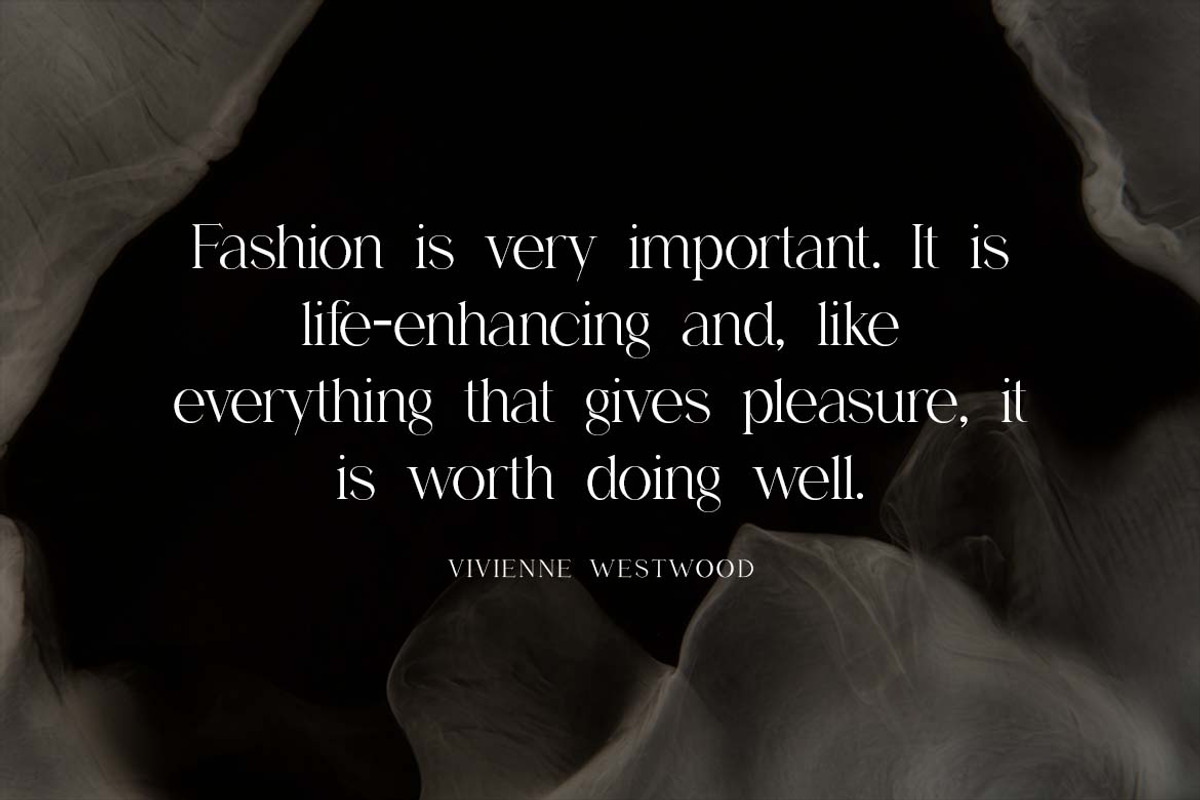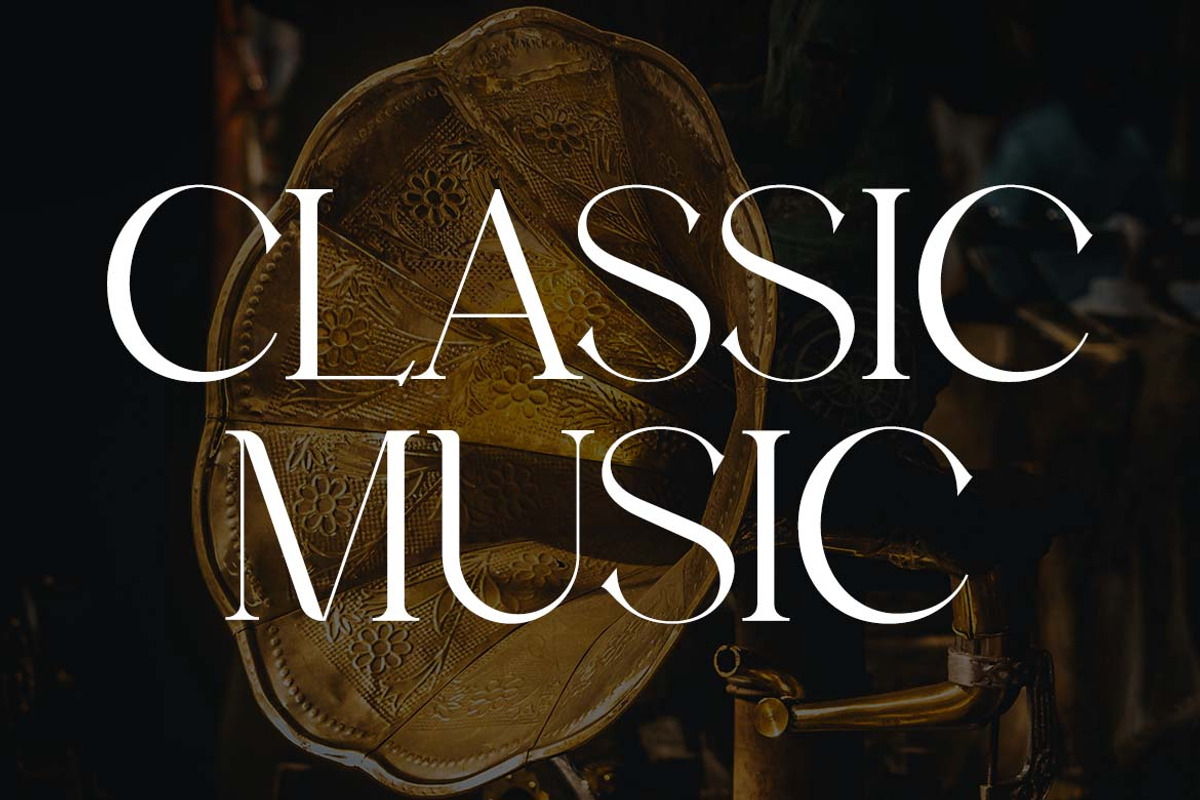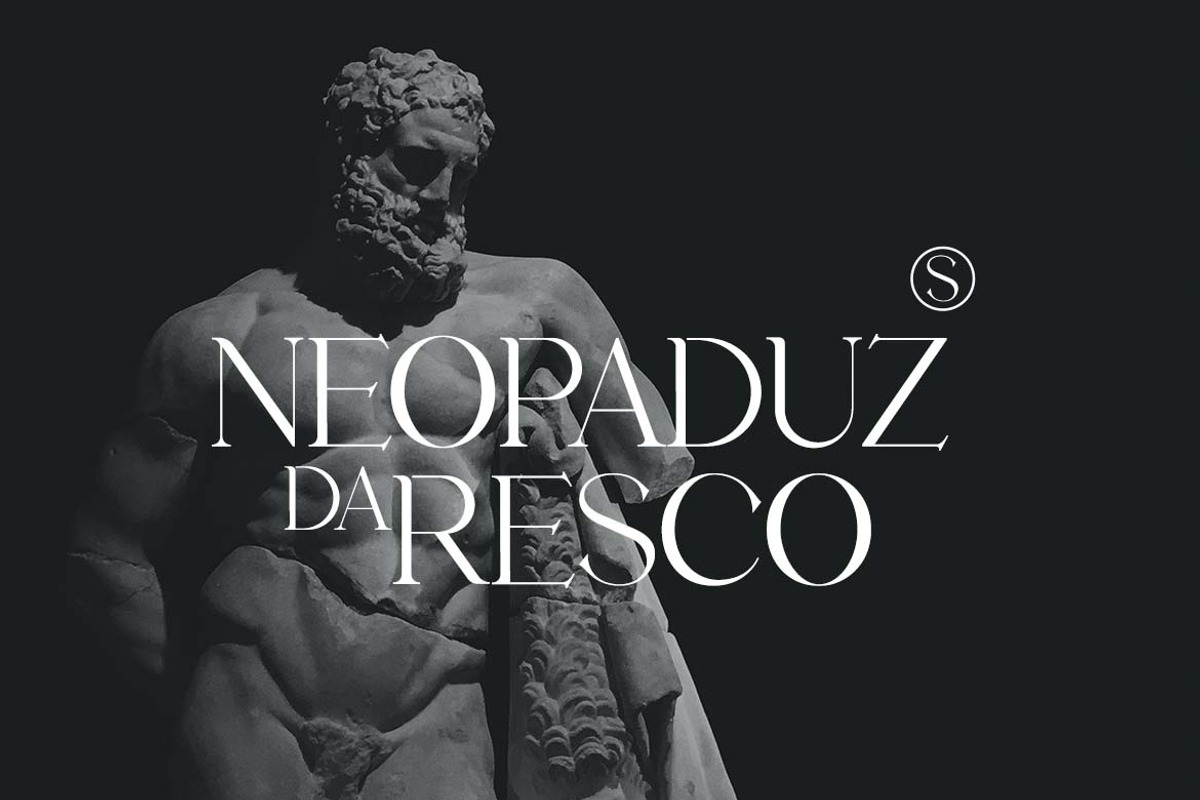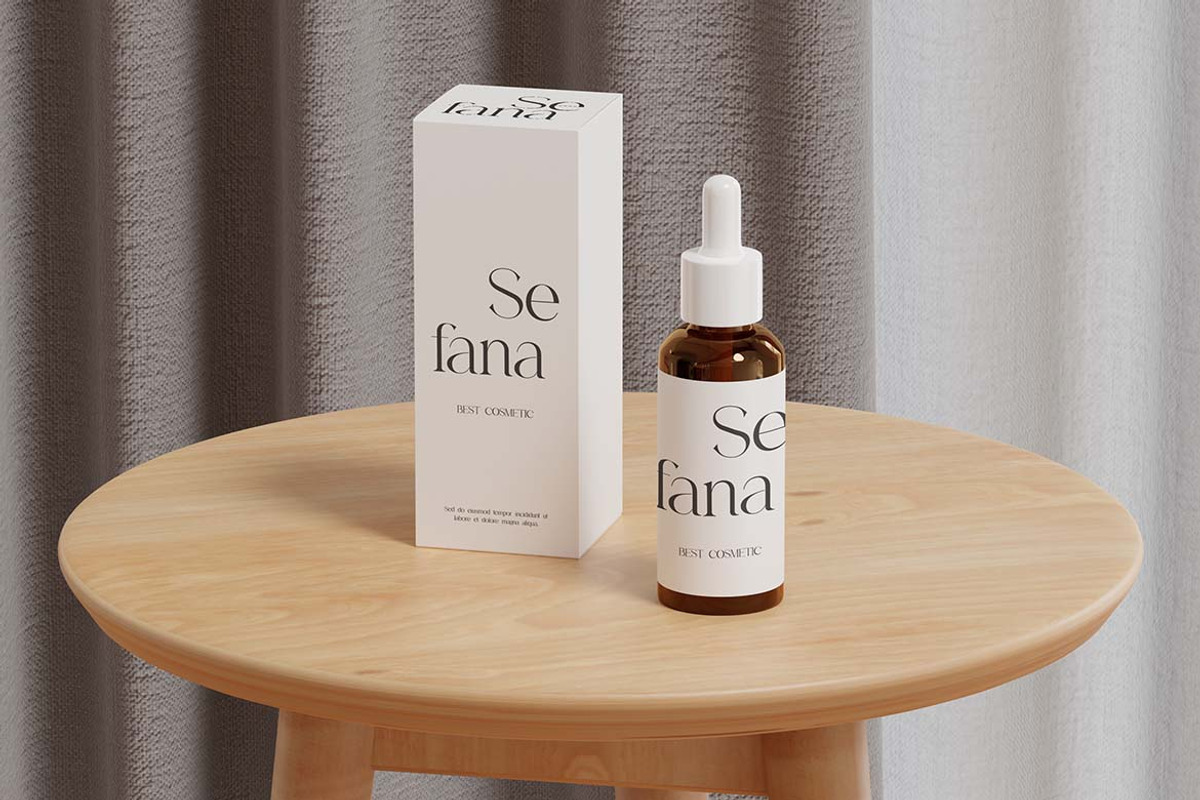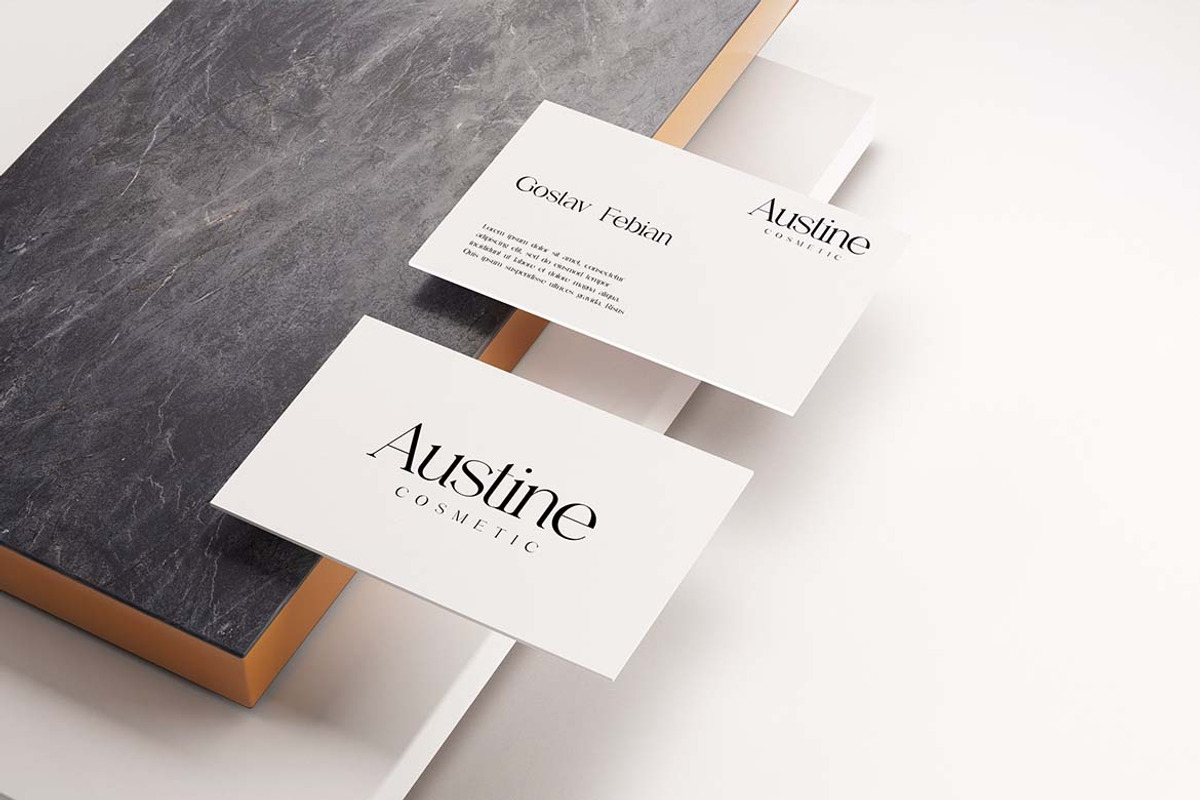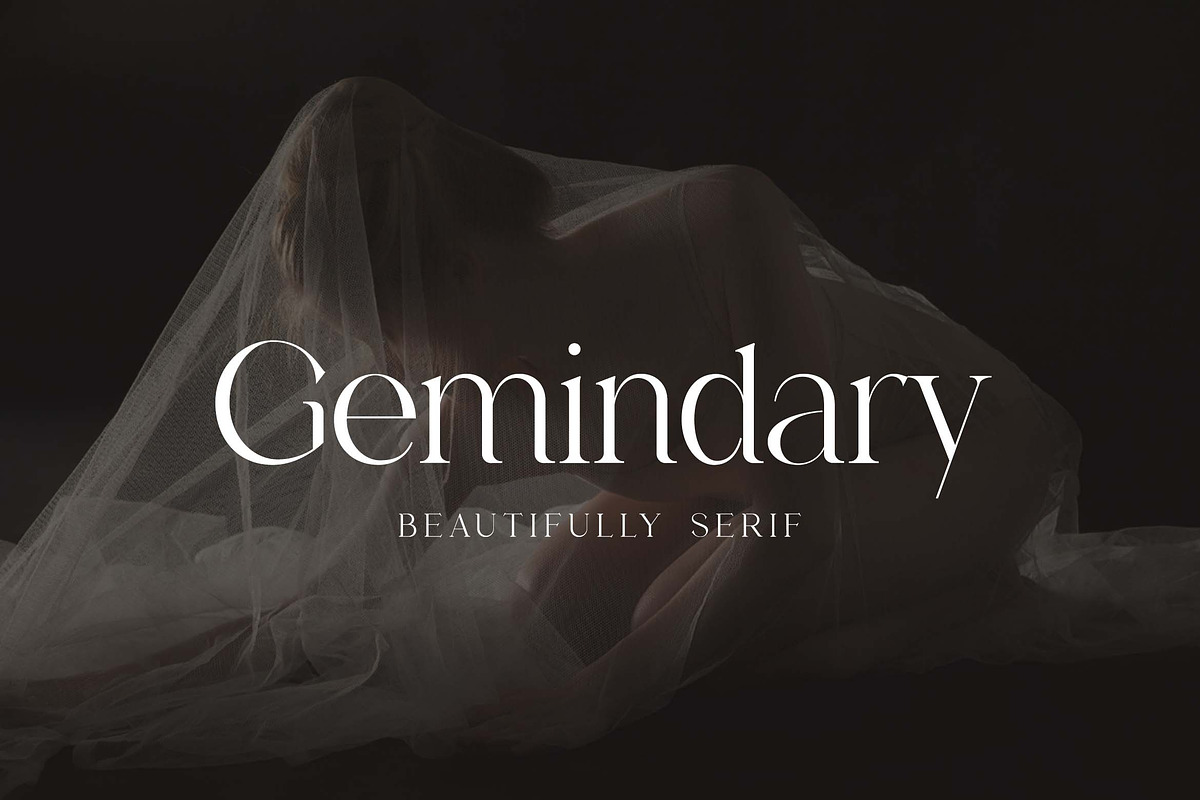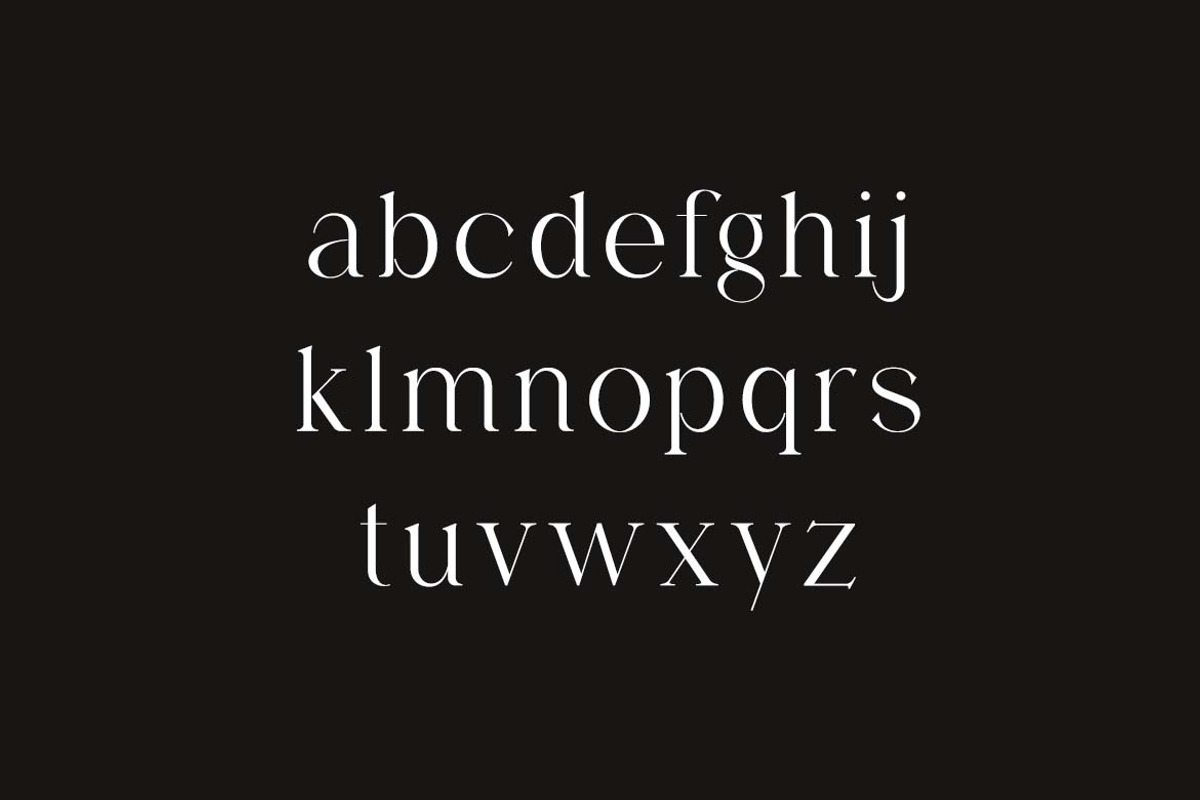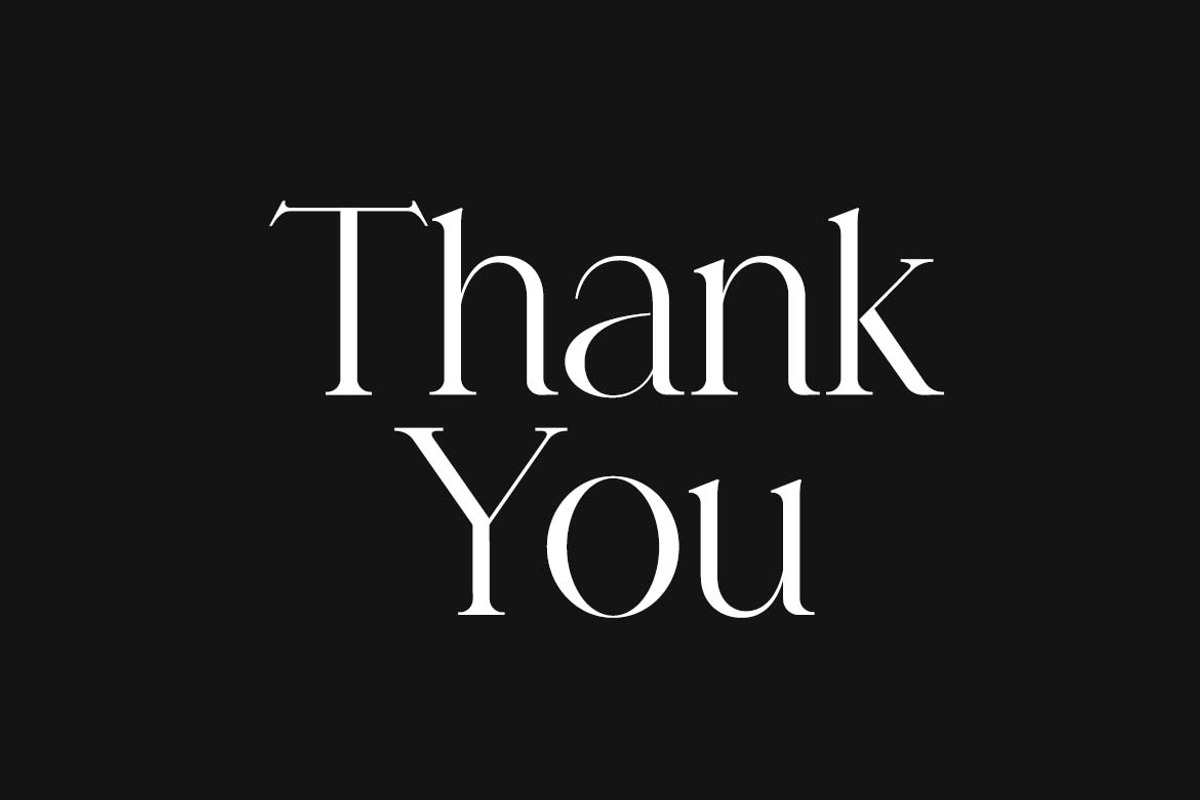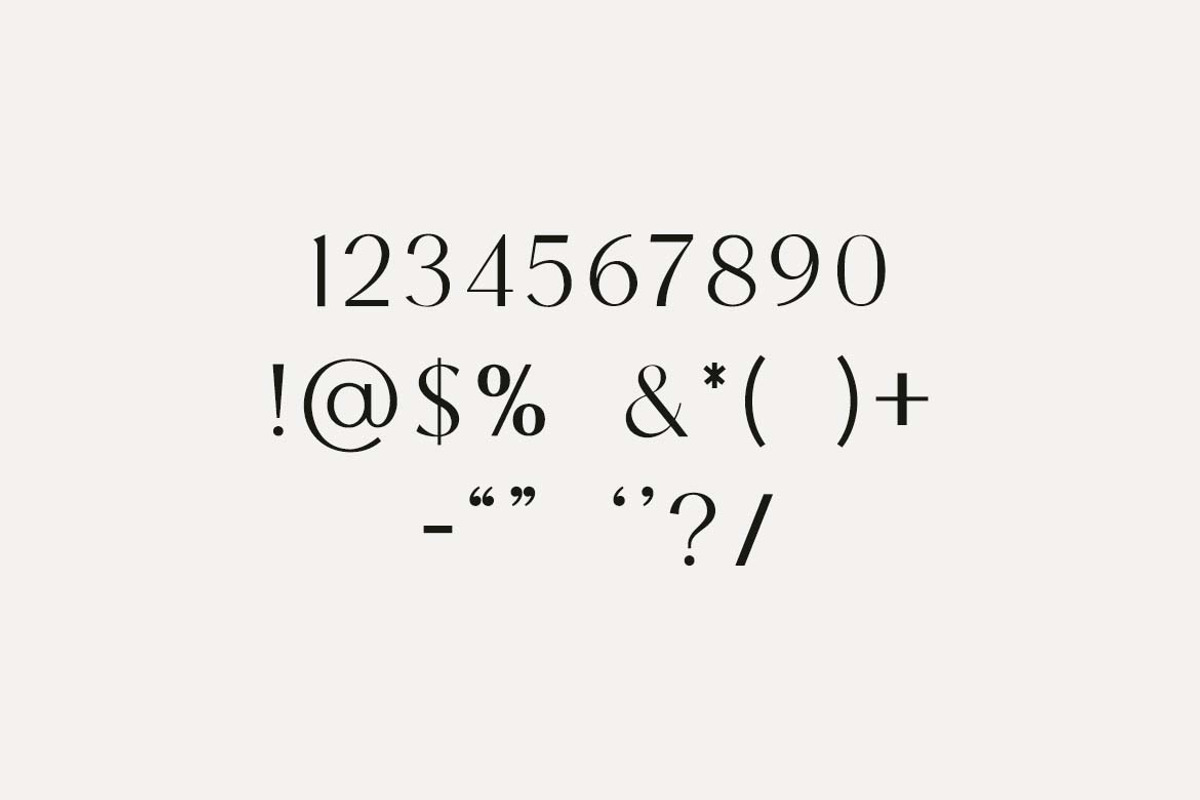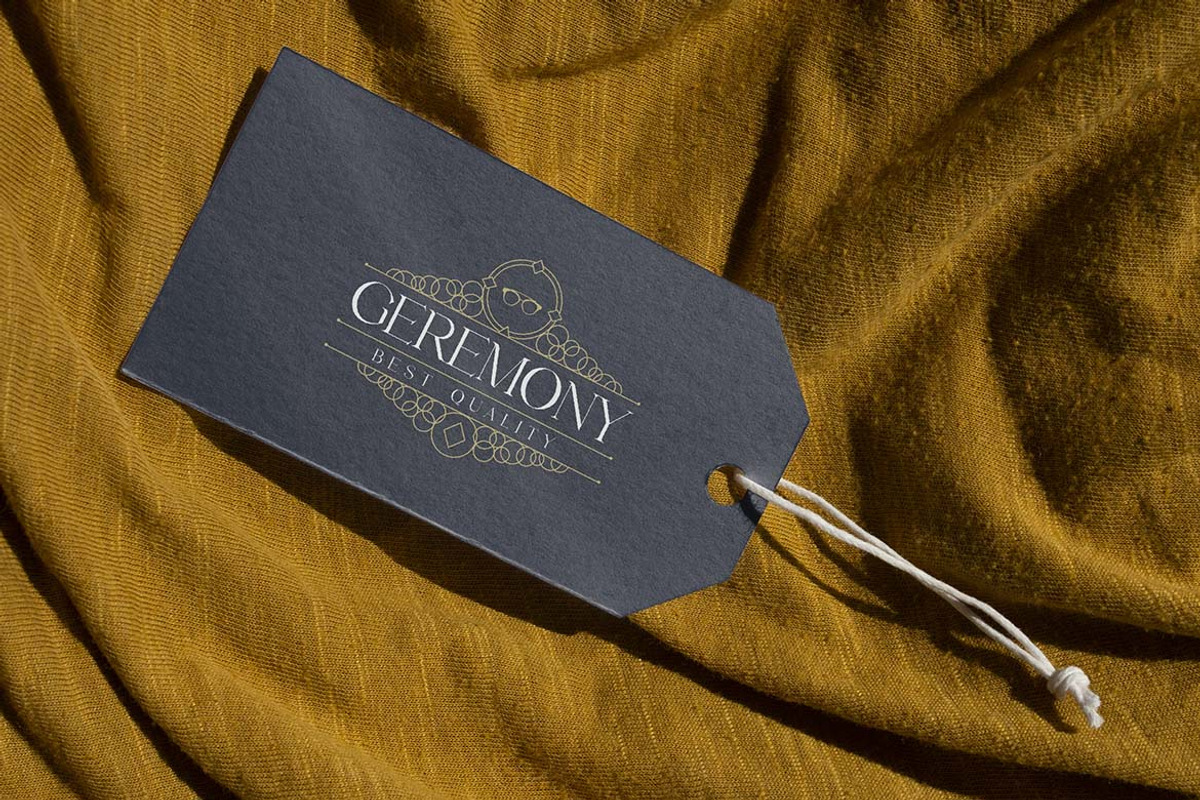
Gemindary Beautifully Display Serif
Gemindary Beautifully Display Serif . The modern display font feels beautiful classy, elegant, and stylish. This font is ideally suited for a wide variety of projects, such as signature, stationery, logo, wedding, typography quotes, magazine or book covers, website headers, branding, and more. Also, fashion-related branding or editorial design displays both masculine and feminine qualities.